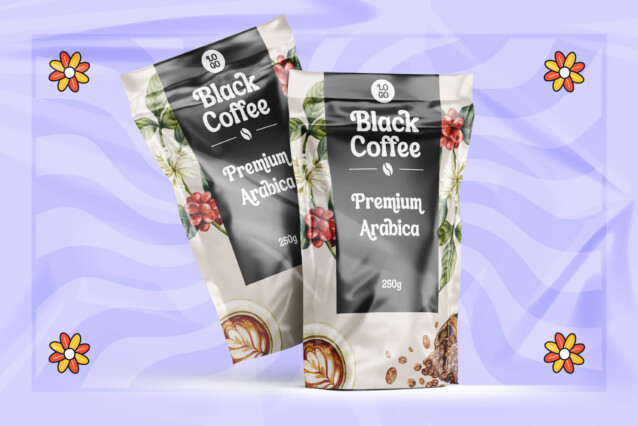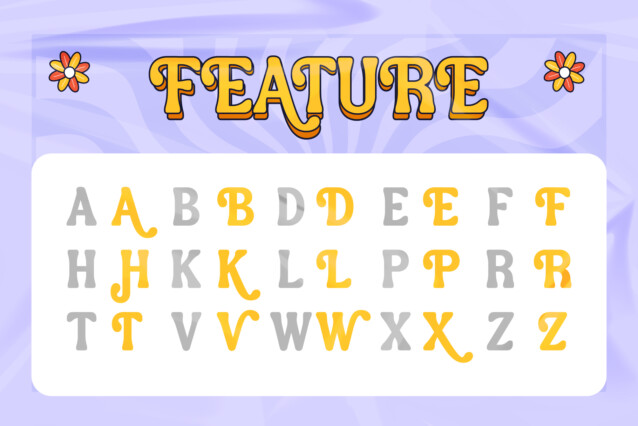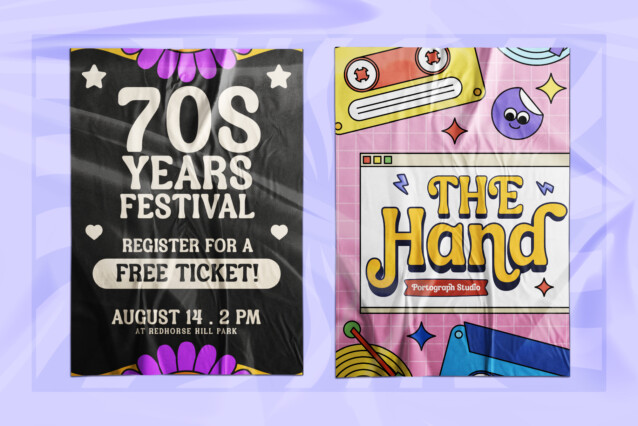
The Hand Typeface
The Hand Typeface – This typeface has a unique and attractive appearance. The Hand looks great when combined with solid character fonts.
For branding projects, logos, wedding designs, social media posts, advertisements, product packaging, product designs, labels, photography, watermarks, invitations, stationery, and anything requiring handwritten taste, The Hand is perfect.